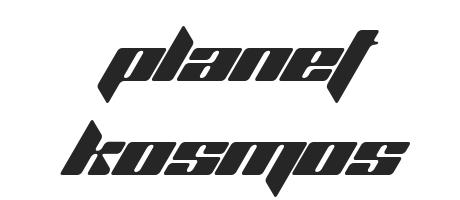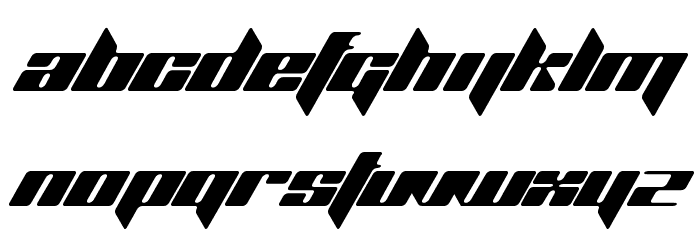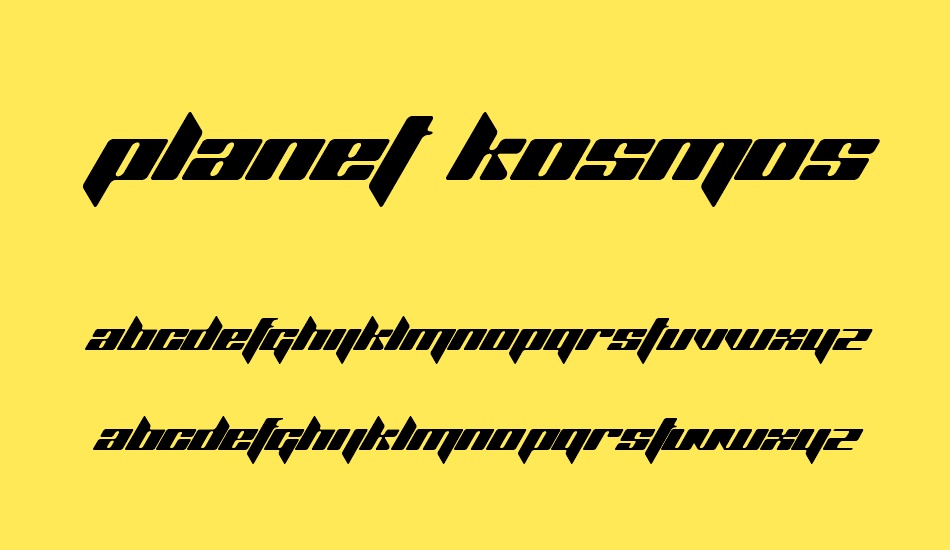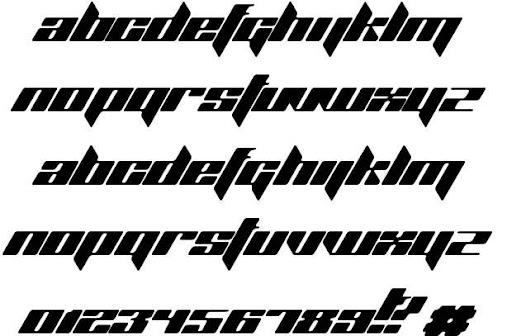
This font was designed by planet. It has a full character set in both. So, this can clearly give awesome designs.
He has created its texture bold and thick with sharp edges just to make it fine and elegant for display tasks. 17 professional planet cosmo fonts to download. About planet kosmos font interested in downloading the planet kosmos font?
Version macromedia fontographer 4.1.2 25/11/98. More information on this page. Mads rydahl is known as the primary designer of this font because he releases it during november 1998.